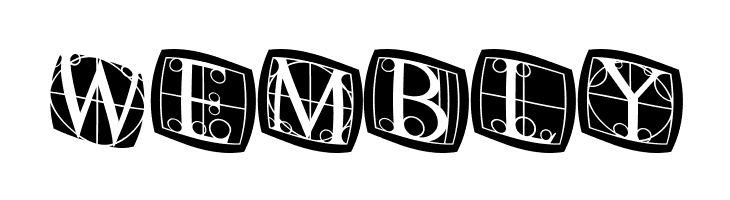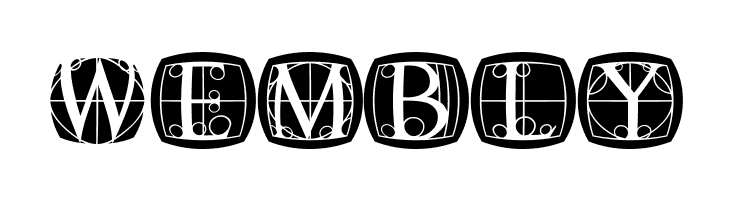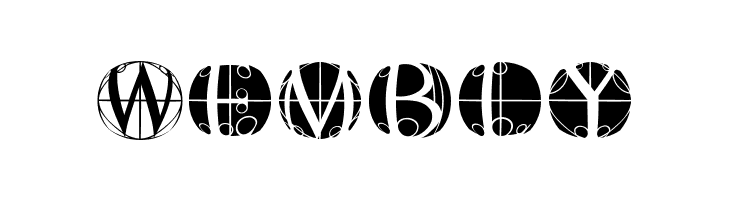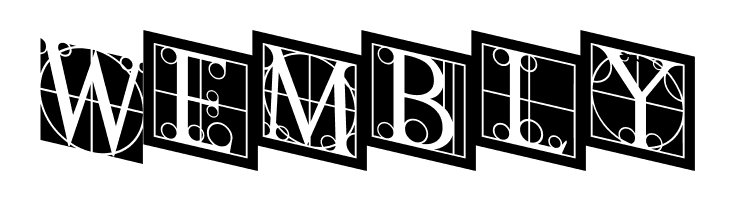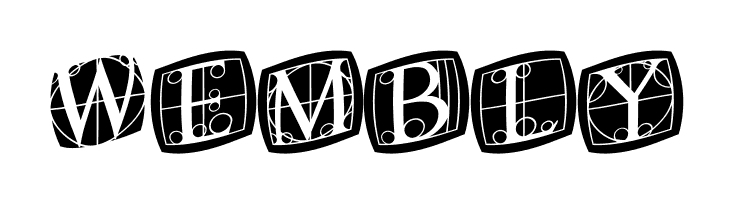
Chilly Cherry DEMO Regular Font
A bold, geometric font with decorative patterns and rounded edges.
A decorative font with circular, geometric patterns and rounded enclosures.
A decorative font with circular, geometric, and artistic elements.
A decorative, geometric font with uppercase letters in framed designs.
A bold, decorative font with rounded edges and intricate geometric patterns.
A decorative font with circular frames and intricate geometric patterns.
A decorative and geometric font with intricate line work and circular patterns.
An ornate and decorative font with intricate detailing and vintage flair.